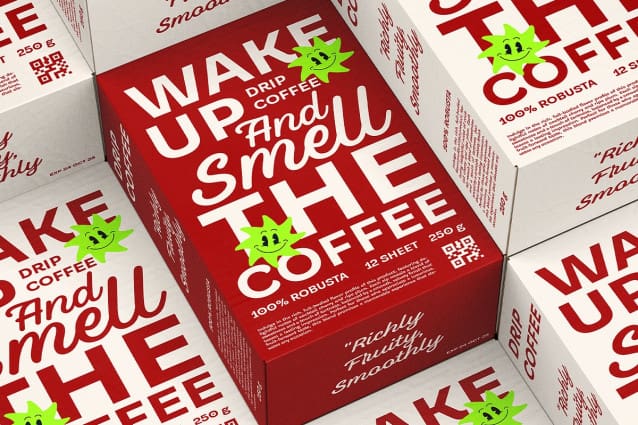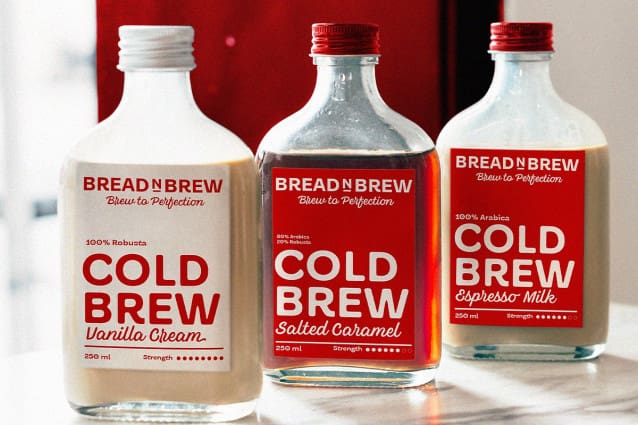
UT Coffean Font Duo
UT Coffean Font Duo – Crafted with inspiration from the organic curves of a coffee bean, this font collection offers a versatile blend of UT Coffean Sans and UTCoffean Script, making it a go-to for anyone seeking a lovely coffee font with warmth and authenticity. Perfect for branding, packaging, or digital content, this Kenyan coffee font alternatives evokes a cozy, handcrafted feel, ideal for creating an inviting atmosphere in any design project. With a range of styles, including UTCoffean Sans Regular, UTCoffean Sans Smooth, UT Coffean Sans Oblique, and UTCoffean Sans Organic, this font family caters to diverse design needs.